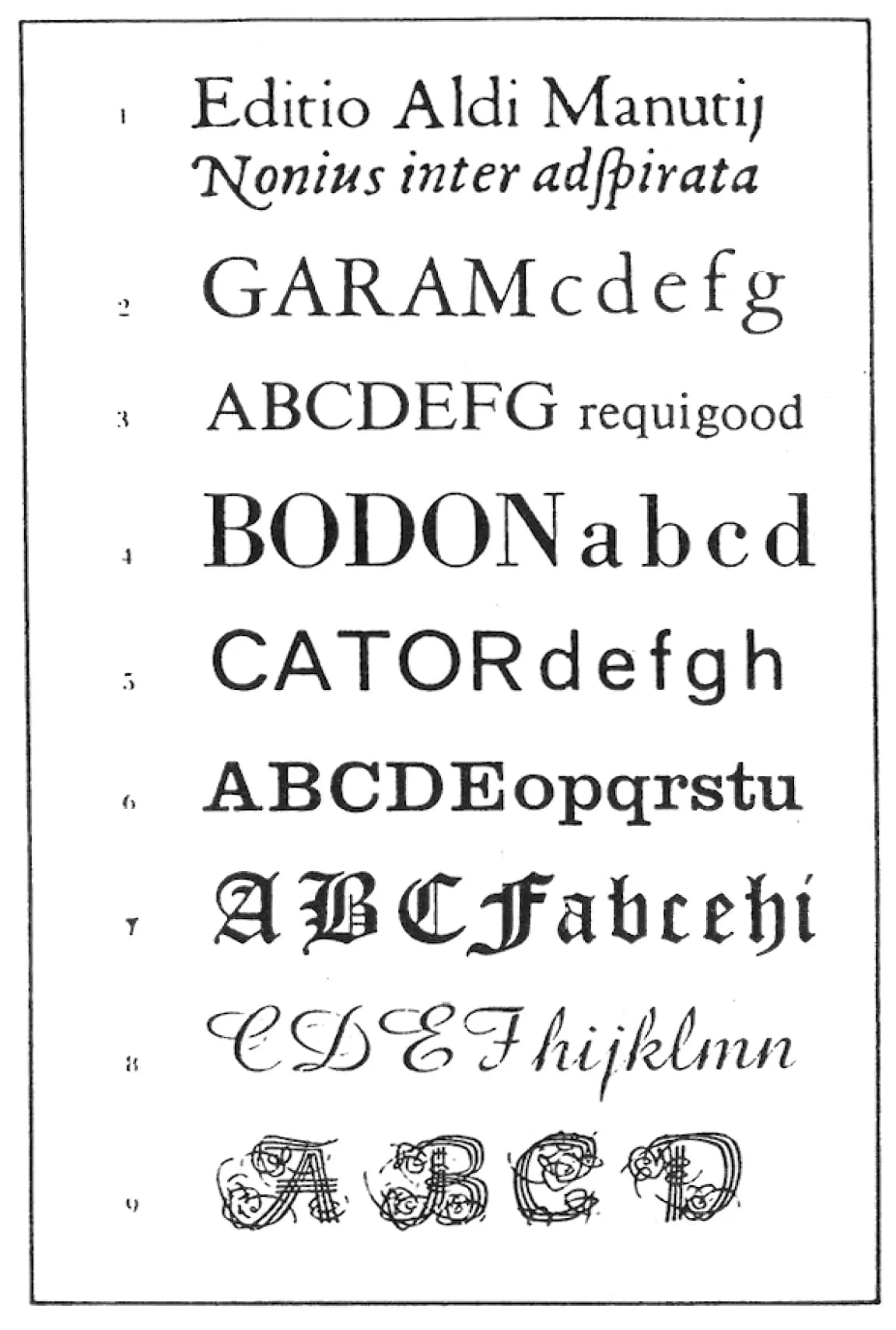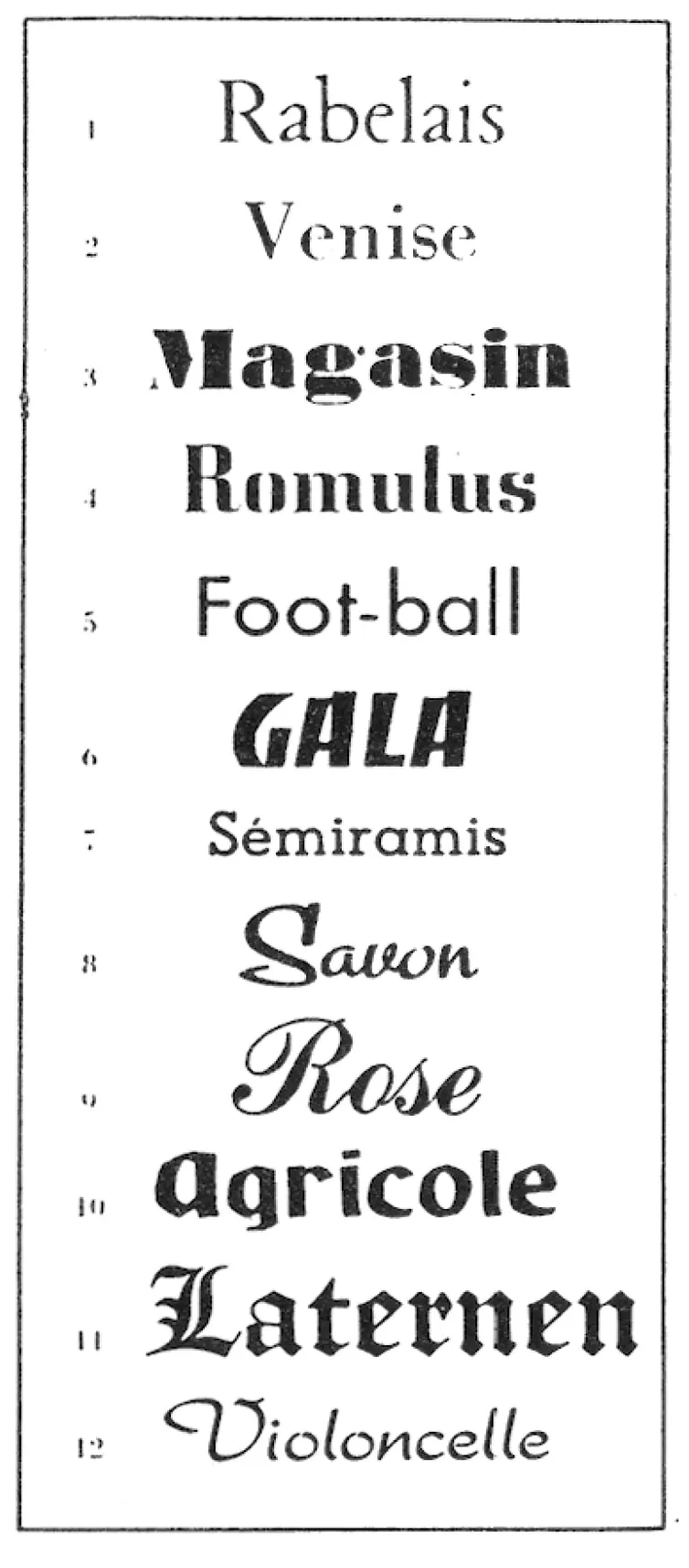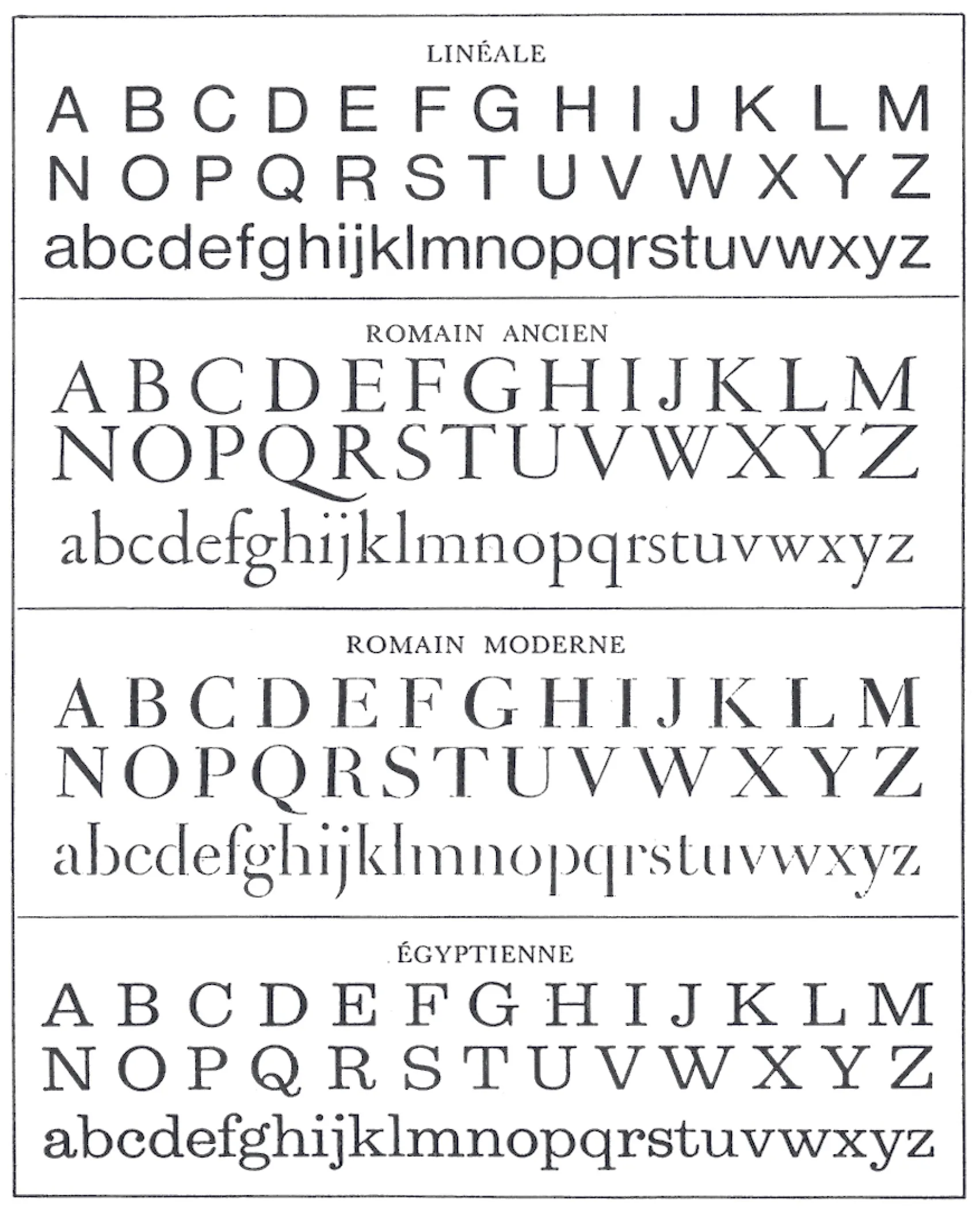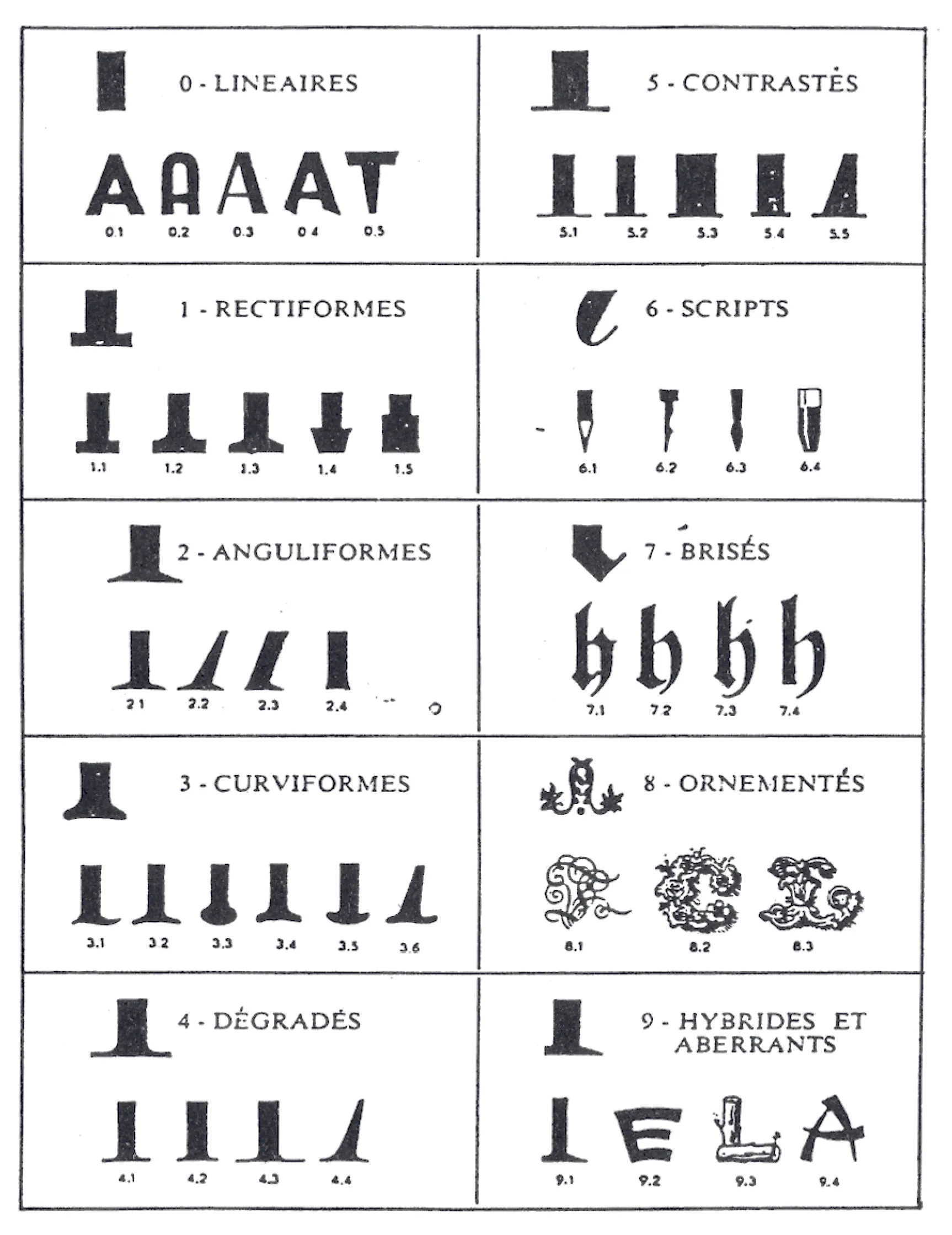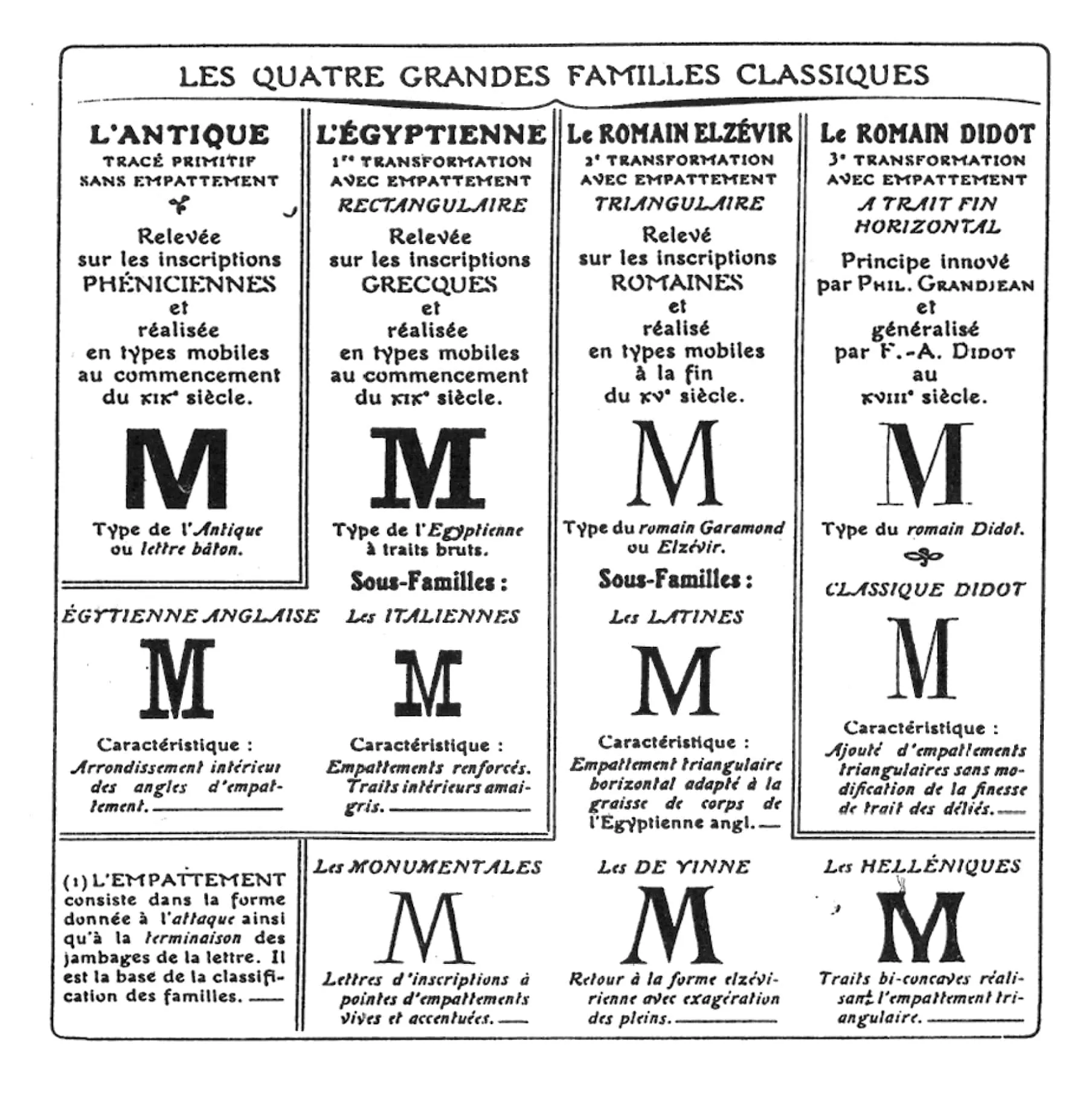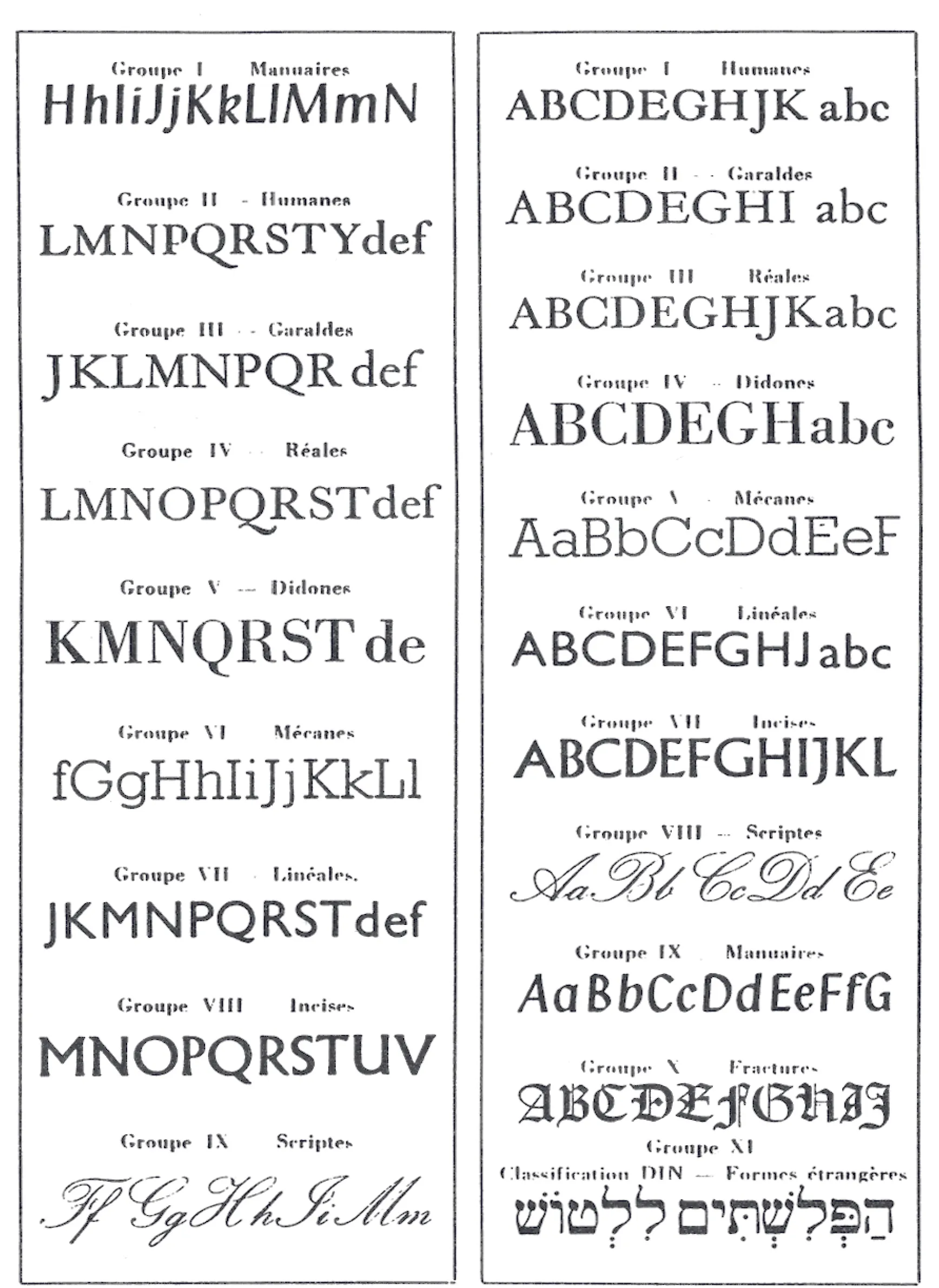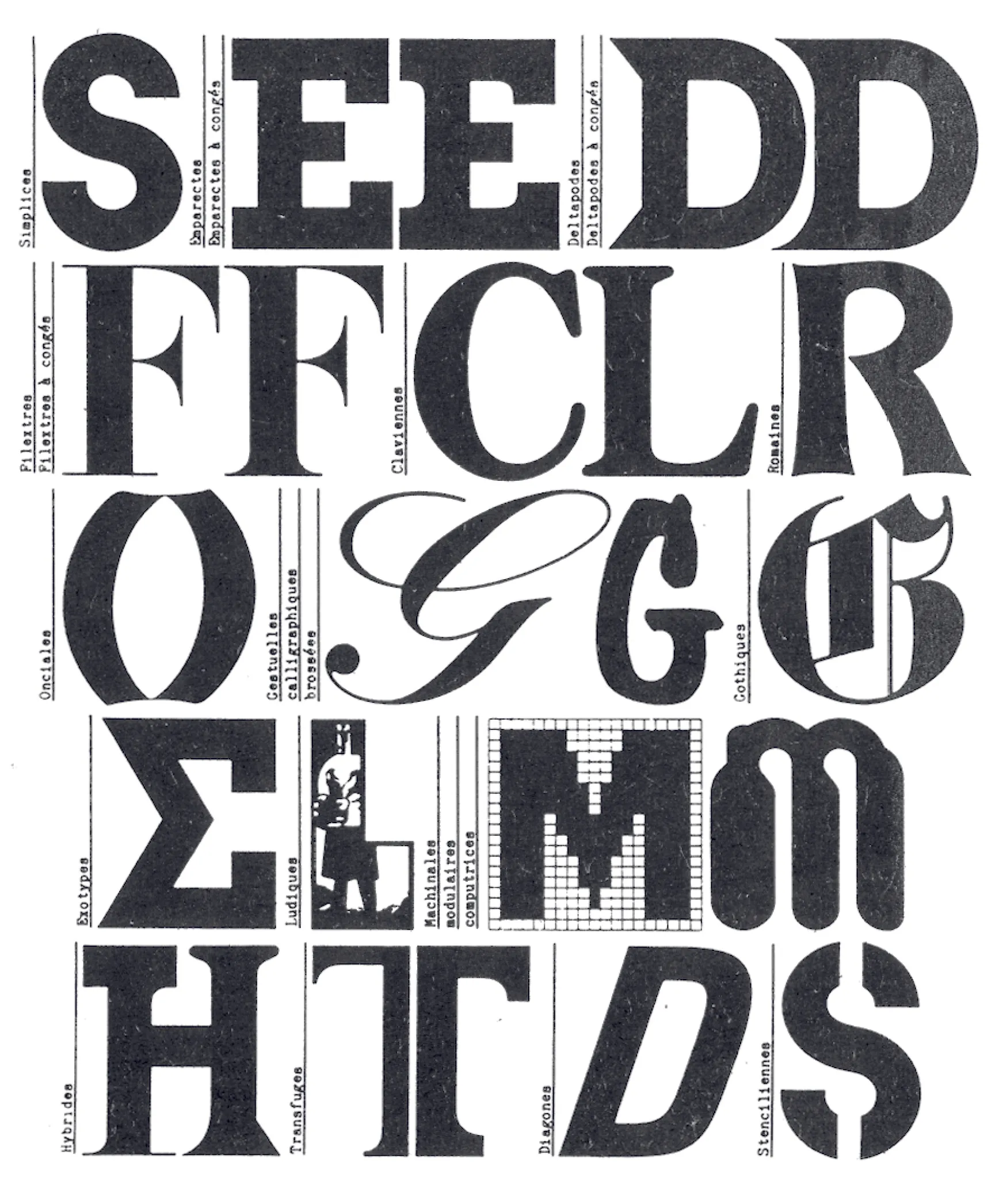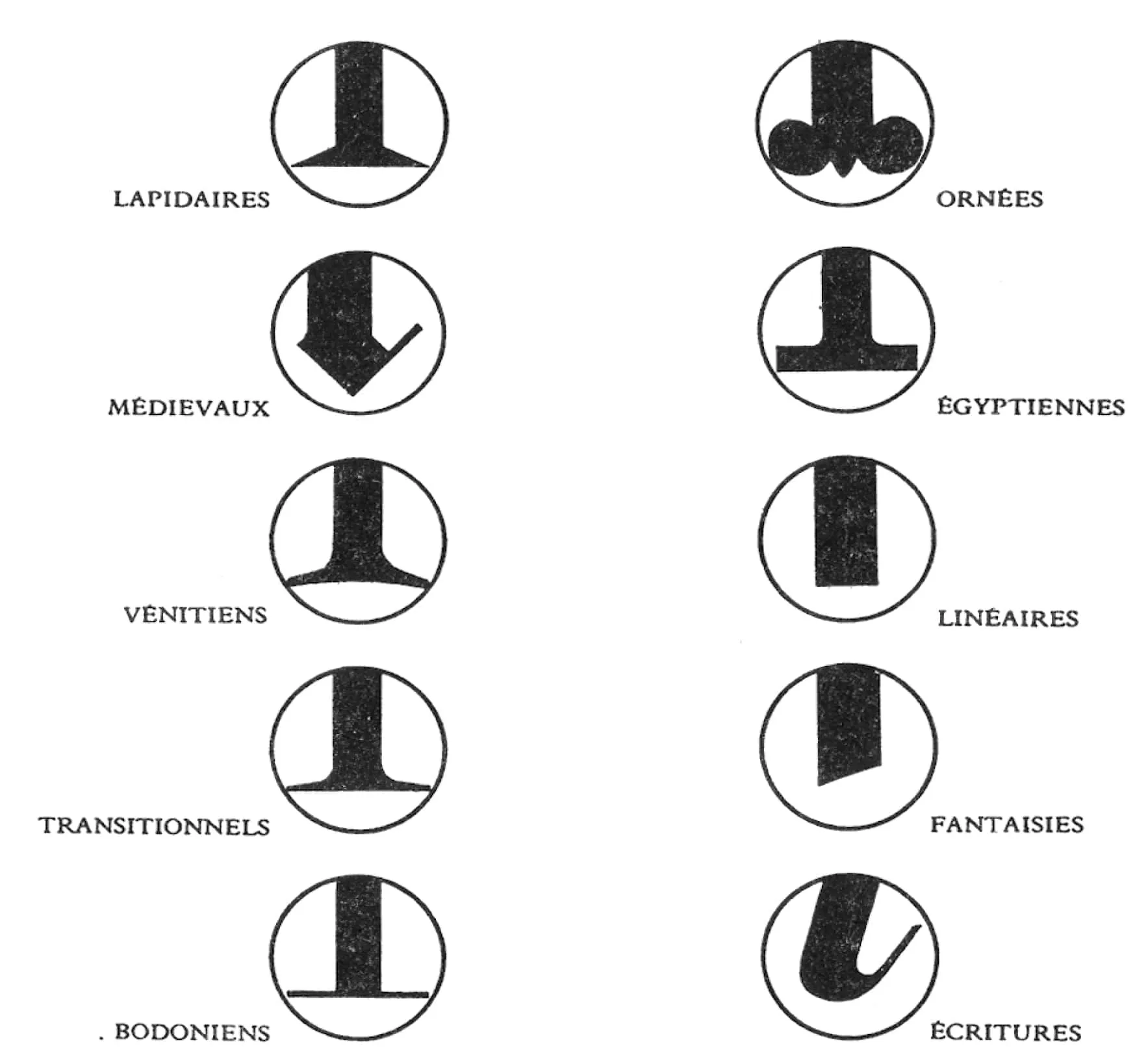
History of Type Classification
All you need to know about Type Classification!
Type classification: ordering type creation
As a graphic designer, one of my main passions is reading graphic design books, from monographs to theoretical essays. Then, I really love to classify my bookshelves in a semantic way.
Well, I guess graphic designers are good at creating order, hierarchizing and revealing structure. It’s finding the inner structure in texts and pictures in order to make sense for the reader. Classification is the science or art of creating order between objects or ideas: from the periodic table of elements, to the Diagnostic and Statistical Manual of Mental Disorders (DSM), classification is the map displaying the connections between elements in a rational way. And it’s always easy to find what you want when looking at a map, isn’t it?
In typography, type classification is useful for:
1. revealing how types are designed;
2. revealing the different styles or design approach;
3. a better communication when describing and choosing a type
4. composing your font pairing.
PART 1
The biggest part of this chapter is taken from Classification Typographique by René Ponotin Communication et Langages, issue 81, 1989.
When needed, the first word is the original term in the original language. An english traduction is proposed after the /.
1921, Francis Thibaudeau (France)
1929, Marius Audin (France)
- Gothiques / Black Letters
- de forme / titling
- de somme / body text
- bâtardes / fraktur
- Romaines / Roman
- Elzévirs / Elzevirs
- Type (as model type)
- de transition / Transition
- Didot / Modern Face
- Type (as model type)
- Egyptienne / Egyptian
- Latine / Latin
- Antique
- Cursives / Cursive
1952, Maximilien Vox (France)
- Humanes / Venetian
- Garaldes / Old-Face
- Réales / Transitional
- Didones / Modern Face
- Mécanes / Egyptian Slab
- Linéales / Sans serifs
- Incises / Incised Latin
- Manuaires / Hand drawn display
- Scriptes / Scripts1
1953, Berry-Johnson (UK)
18 categories
1953, Balding & Mansell (UK)
- Vénitiennes / Venetian
- Caractères anciens / Old Faces
- Style Ancien / Antique Style
- Modernes / Modern Face
- Sans Sérif / Sans Serif
- Egyptiennes / Egyptian Slab
- Gothique / Black letters
- Cursive / Cursive
- Fantaisie / Fancy
1953, Bastien (UK)
- Romain vieux style / roman old style
- Romain moderne / roman modern
- Caractères gras / bold
- Romain type décoratif / roman type ornated
- Caractères sans empattement / sans serif
- Caractères sans empattement de type décoratif / sans serif ornated
- Égyptiennes / egyptian
- Caractères d'écriture à effet de pinceau lourd et léger / bold heavy brush
- Écritures conventionnelles / conventionnal writting
- Calligraphiques / calligraphic
- Blackletters
- Cursives
1955, John C. Tarr (UK)
38 groups in 11 categories
1957, Aldo Novarese (Italy)
- Lapidaires / Incised Latin
- Médiévaux / Blackletters
- Vénitiens / Venitians
- Transitionnels / Transitional
- Bodoniens / Modern Face
- Ornées / Ornate
- Égyptiennes / Egyptian Slab
- Linéaires / Sans Serifs
- Fantaisies / Fancy
- Écritures / Script
1958, R. H. Munsch (France)
10 categories.
1962, Vox-AtypI, Maximilien Vox (International)
- Humanes / Venetian
- Garaldes / Old-Face
- Réales / Transitional
- Didones / Modern Face
- Mécanes / Egyptian Slab
- Linéales / Sans serifs
- Incises / Incised Latin
- Manuaires / Hand drawn display
- Scriptes / Scripts
+ Gothiques /Black Letters
+ Non-Latin
1963, Pellitteri (Italy)
- Linéaires / Sans Serifs
- Rectiformes / Slab
- Anguliformes / Angular-shapes
- Curviformes / Curvy-shapes
- Dégradés / Gradient
- Contrastés / Contrasted
- Scripts / Scripts
- Brisés / Brocken
- Ornementés / Ornate
- Hybrides et aberrants / Hybrids & aberrants
1978, Jacno (France)
- Linéale / Sans Serif
- Romain Ancient / Ancient Roman
- Romain Moderne / Modern Roman
- Egyptienne / Egyptian Slab
1979, Codex 1980, Jean Alessandrini (France)
The difficulty of explaining Alessandrini’s classification remains that the word used to describe the font are neologisms in order to stay away from Vox’s classification.
More than a solid classification Codex 1980 is a modular classification: a font can be described as various categories.
- Simplices / Sans serif
- Emparectes / Slab
- Emparectes à congés / Rounded slab
- Deltapodes / Triangular serif
- Deltapodes à congés / Rounded triangular serif
- Filextres / Modern face
- Filextres à congés / Rounded modern face
- Claviennes / Nail shaped serif
- Romaines / Incised Latin
Let’s work with linguists, mathematicians and type scholars for a new classification, but who would ever use it? Paleograph are using their own criteria. It would be useful for a very few people even if it would be a great task to solve such an equation with so many unknown. During this time, while the AtypI is working hard, everything continues in his own life. Like an old grammarian prescribing grammar rules, language and its users are smarter than that, type design is more powerful than classification systems.